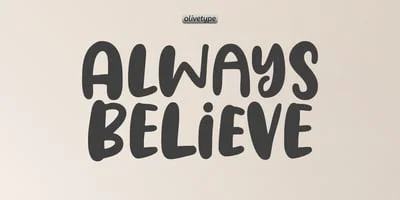
Always Believe Font
Always Believe Font delivers an inspirational typeface that embodies hope and motivational sophistication with uplifting character. However, for commercial use, you must purchase this font. You can download it for free for testing purposes only.
Always Believe Font excels in motivational design applications including inspirational coaching brands, motivational speaker materials, faith-based organizations, personal development programs, wellness retreat communications, positive affirmation products, life coaching services, spiritual growth centers, empowerment workshops, and uplifting lifestyle campaigns. This encouraging typeface brings authentic inspiration to hope-focused design projects.
What makes Always Believe Font truly exciting is its perfect embodiment of unwavering faith with confident letterforms that radiate optimism and inner strength through encouraging design elements. The font features uplifting characters with inspirational proportions and motivational energy that convey resilience, hope, and the transformative power of positive belief. Its inspirational personality and faith-driven character make it ideal for brands celebrating personal growth, spiritual development, and audiences who appreciate motivational messages, positive thinking, and the life-changing impact of maintaining faith through challenges and pursuing dreams with unwavering determination.
The Always Believe Font family typically includes Regular weight with potential inspirational variations and uplifting elements that enhance its motivational character. These encouraging options provide designers with complete inspirational styling while maintaining the font's distinctive hopeful elegance and positive presentation across various motivational applications and faith-based contexts.
Whether you're developing inspirational branding, creating motivational campaigns, or designing empowerment materials, Always Believe Font provides the spiritual authority and motivational sophistication that faith-focused projects require. Its exceptional positivity and inspiring appeal make it invaluable for designers working with coaching organizations, spiritual centers, and empowerment-focused brands requiring typography that celebrates personal faith, encourages positive thinking, and reflects the powerful belief that with determination, hope, and unwavering faith in oneself and higher purpose, any dream is achievable and every challenge becomes an opportunity for growth and transformation.